Urdu Font Preview Tool
Live Urdu Font Previews: Preview Before You Download
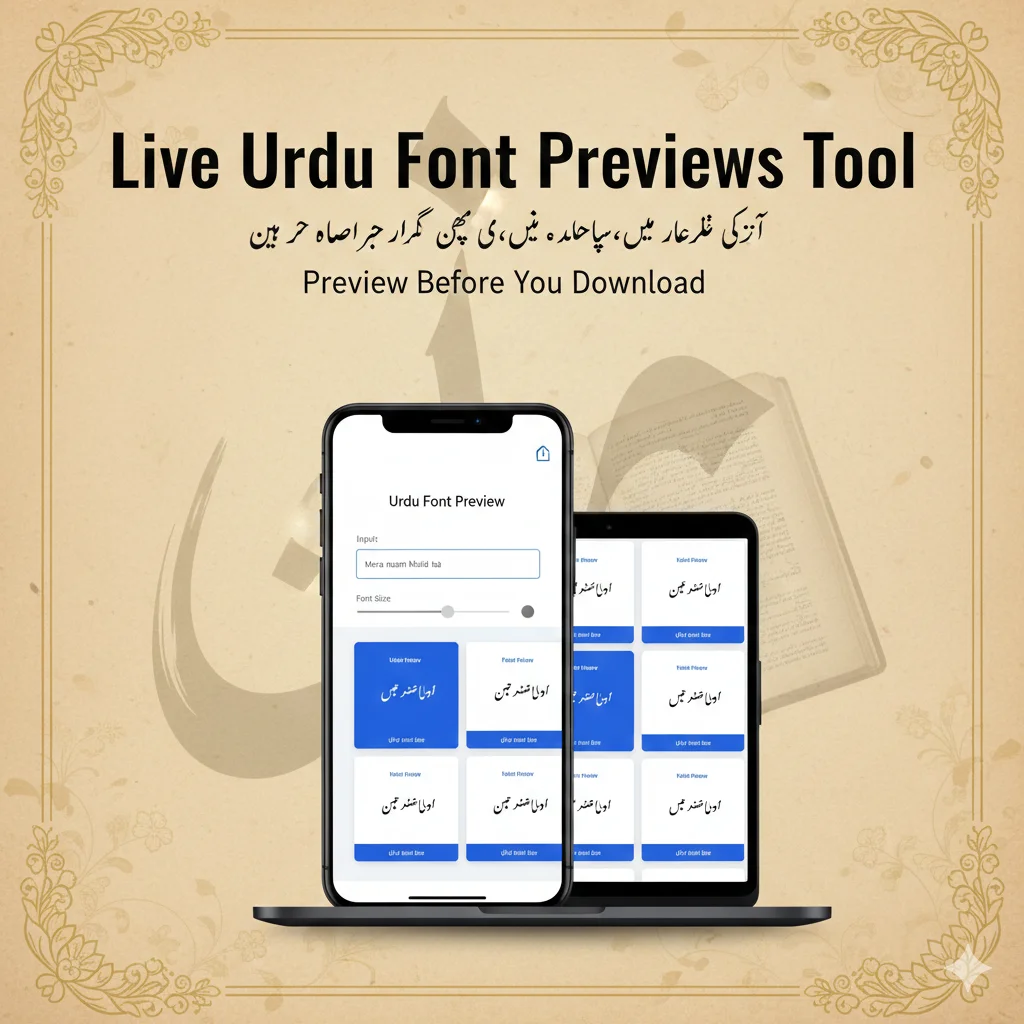
1. Introduction
Welcome to UrduFontsS.net – your trusted source for Urdu fonts free download since 2026 . Today, we’re excited to launch a game-changing feature: Live Urdu Font Previews.
Have you ever downloaded a beautiful Urdu font only to find it doesn’t look right with your text? We’ve solved that problem forever.
Our new Live Urdu Font Previews tool lets you type your Urdu text once and see it instantly in multiple fonts – before you download anything. It’s like trying on clothes before buying, but for Urdu typography.
In this comprehensive guide, we’ll explore everything this tool can do, how to use it, and why it’s the best Urdu font preview tool available online.
2. What is Live Urdu Font Previews?
Live Urdu Font Previews is an interactive tool built directly into UrduFontsS.net that allows you to:
- ✍️ Type Urdu text in a simple text box
- 👀 See instant updates across all available fonts
- 🔍 Adjust font size with a smooth slider
- 🎨 Change text color and background color
- Apply bold, italic, and underline styles
Think of it as your personal Urdu font playground. No more guessing how “Jameel Noori Nastaleeq” will look with your poetry – you’ll see it immediately.
3. Why Live Preview Matters for Urdu Typography
Urdu script is beautiful and complex. Unlike English fonts where letters are separate, Urdu uses Nastaliq script where letters connect in flowing curves . This means:
- The same font can look dramatically different with different words
- Font size affects readability more than in English
- Color and background choices matter for calligraphy
Before our live preview tool, users had to:
- Download a font
- Install it on their computer
- Open a design app
- Type their text
- Realize it wasn’t right
- Repeat the process
That’s 5-10 minutes per font. With Live Urdu Font Previews, it takes 5 seconds to preview all fonts at once.
4. How to Use the Live Urdu Font Preview Tool
Using the tool is incredibly simple. Here’s a step-by-step guide:
Step 1: Type Your Urdu Text
Navigate to any page with our preview tool (like this one!). You’ll see a text area labeled “Type your text”. Type or paste any Urdu text – a couple of words, a sentence, or an entire paragraph.
The default text is “میرا نام خالد ہے” (My name is Khalid), but you can change it to anything.
Step 2: Adjust Font Size
Below the text area, you’ll find a Font size slider ranging from 12px to 72px. As you drag it, you’ll see the size change instantly in all font preview cards. The current size is displayed in a blue bubble.
Step 3: Customize Colors
Two color pickers let you control:
- Color: The text color itself
- Background: The background behind the text
Perfect for seeing how fonts will look on different colored designs – dark backgrounds, light backgrounds, or anything in between .
Step 4: Apply Styles
Three style buttons let you experiment:
- B (Bold): Makes text thicker
- I (Italic): Adds a slight slant
- U (Underline): Adds an underline
These toggle on and off with a visual indicator (the button turns blue when active).
|---|---|---|
| PNG | Image with background | Social media posts, quick sharing |
| Transparent | PNG without background | Overlaying on images, logos |
| TTF | Font file | Installing on your computer |
Pro Tip: Click “Copy” to copy your text to clipboard, then paste it anywhere!
5. Key Features of the Live Preview Tool
Let’s dive deeper into what makes this Urdu font style download tool special:
Real-Time Text Update
As you type, every single font preview updates simultaneously. This is powered by JavaScript that listens to every keystroke. No page reloads, no waiting – just instant feedback .
Multiple Font Comparison
Our tool currently supports 100+ Urdu fonts in a clean 2-column grid on desktop and single column on mobile. You can compare:
- Traditional Nastaliq fonts vs. modern Urdu fonts
- Bold styles vs. regular styles
- Different font families side by side
Color & Background Controls
This is a feature most font websites miss. By adjusting colors, you can:
“The color controls help me see exactly how fonts will look on my website.” – Bilal M.
Ready to Transform Your Urdu Typography?
Don’t download another font without previewing it first. Our Live Urdu Font Previews tool is here to make your life easier, your designs better, and your workflow faster.